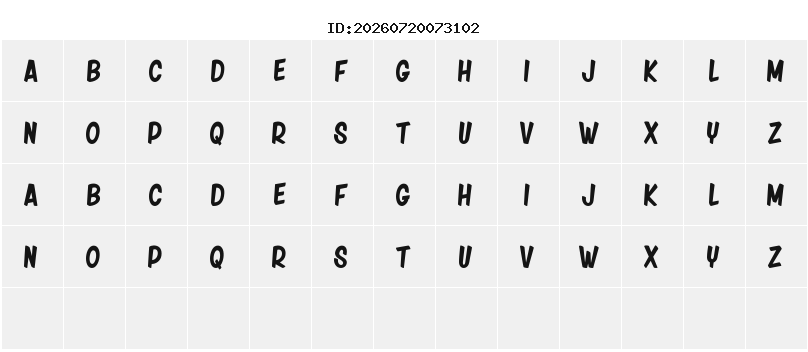
friday night Preview
• Font Name: friday night
• Designer: dcoxy Medina Gregory
• Manufacturer: dcoxy Medina Gregory
About friday night.ttf
friday night.ttf is a modern, elegant sans-serif font designed for ultimate readability and visual harmony. Perfect for branding, headlines, web design, and print materials.